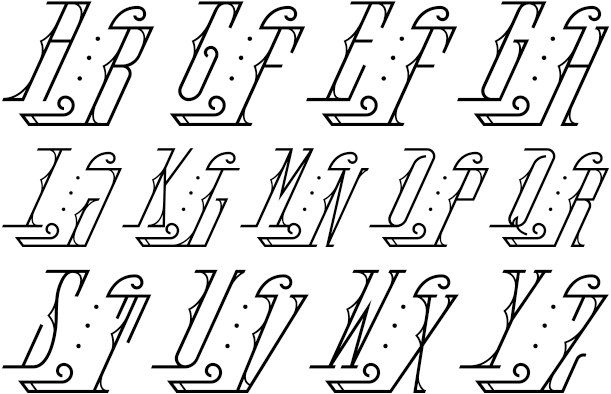
MFC Fantasie Monogram
About MFC Fantasie Monogram
The inspiration source for Fantasie Monogram is another hand-drawn design from a vintage embroidery publication which relies on rigid geometric letterforms on a dynamic slant stepping downwards. This monogram, which evokes visions of it embossed or printed…